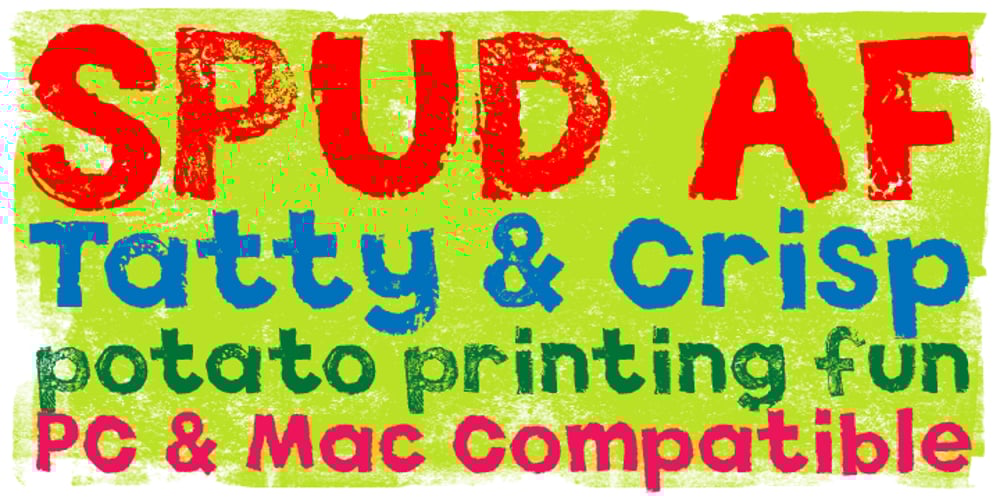
Spud AF Font Family was designed by Andrew Foster and published by Andrew Foster. Spud AF contains 2 styles and family package options. 100% authentic! – all characters were cut from real potatoes, creating the charming imperfections and unexpected results of the real thing. Perfect for posters, children’s projects and ‘green’ themed graphics. Spud AF brings a quirky, personal touch to any job. Please note: Spud AF Tatty has replaced the original Spud AF font.